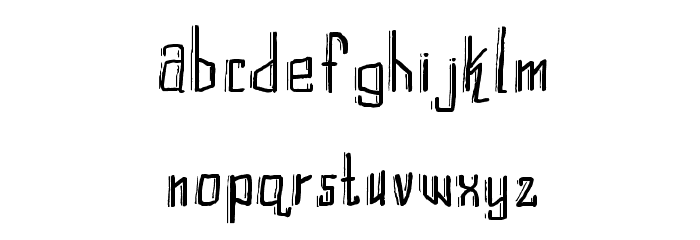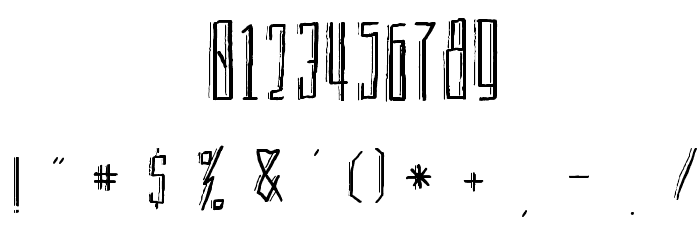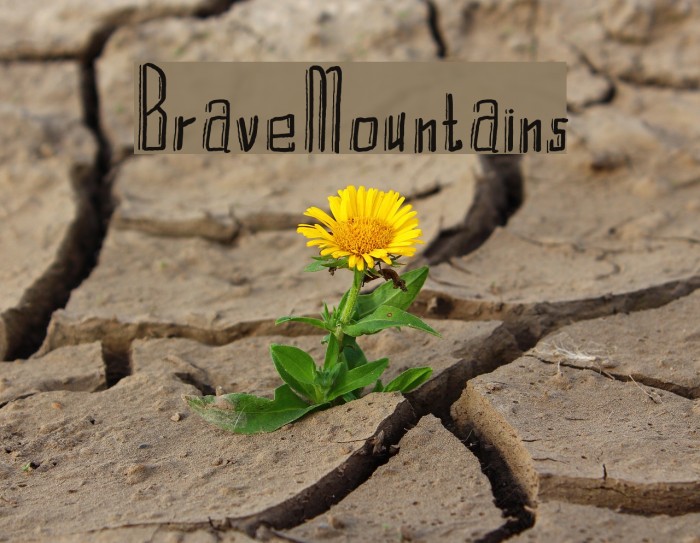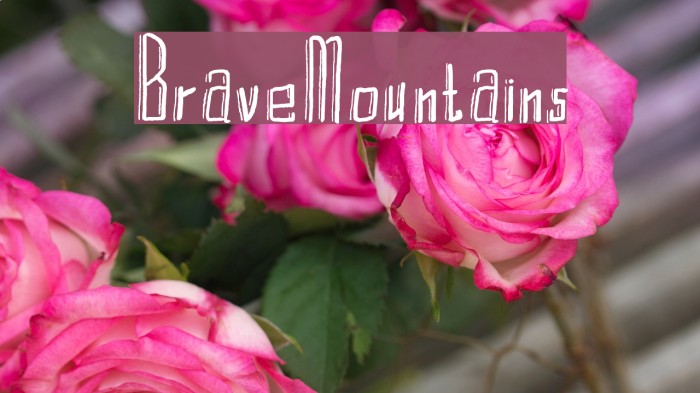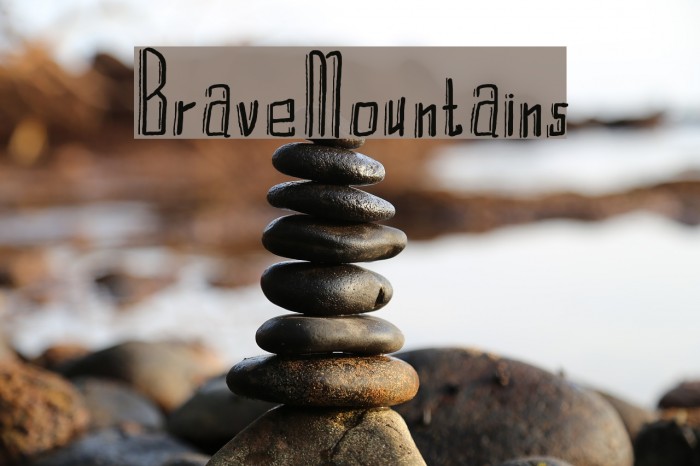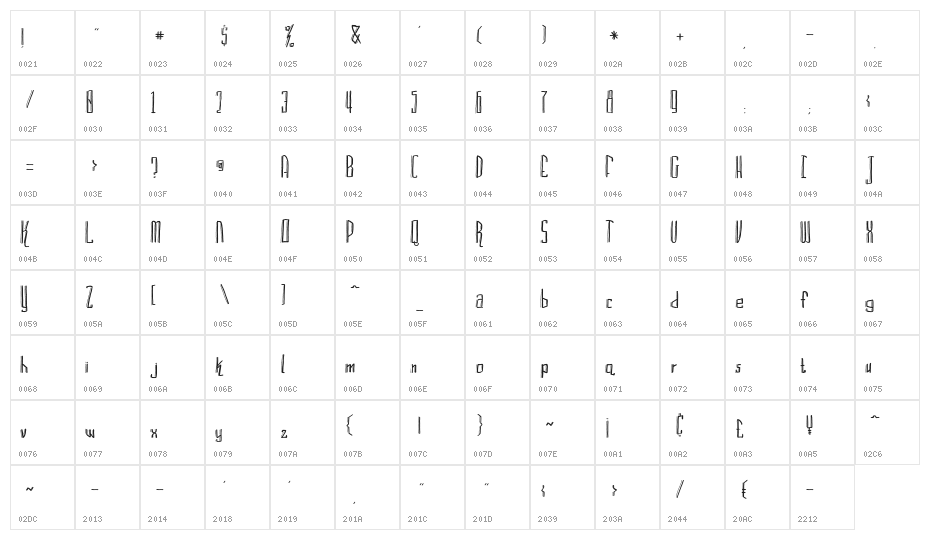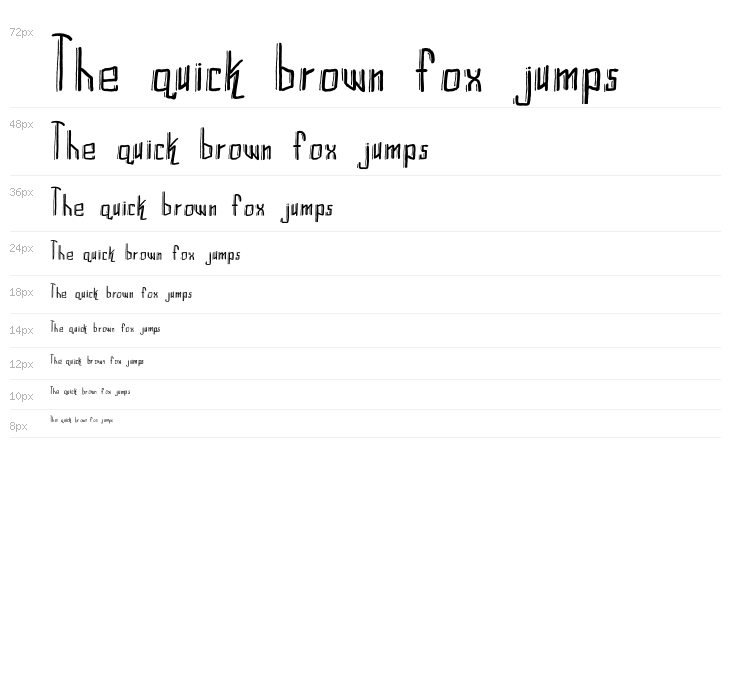
BraveMountains Font
This font features a unique and artistic design with elongated, narrow characters that give it a distinct and modern appearance. The strokes are uneven, adding a hand-drawn, organic feel to the letters. The uppercase letters are tall and commanding, while the lowercase letters maintain a consistent style, offering a cohesive look. Numbers and special characters follow the same design principles, ensuring uniformity across all elements. The font's playful yet sophisticated style makes it suitable for creative projects that require a touch of individuality.
A modern, artistic font with elongated, narrow characters and a hand-drawn feel.
- Proposed Projects: Ideal for branding, posters, album covers, and creative design projects that require a unique and artistic touch.